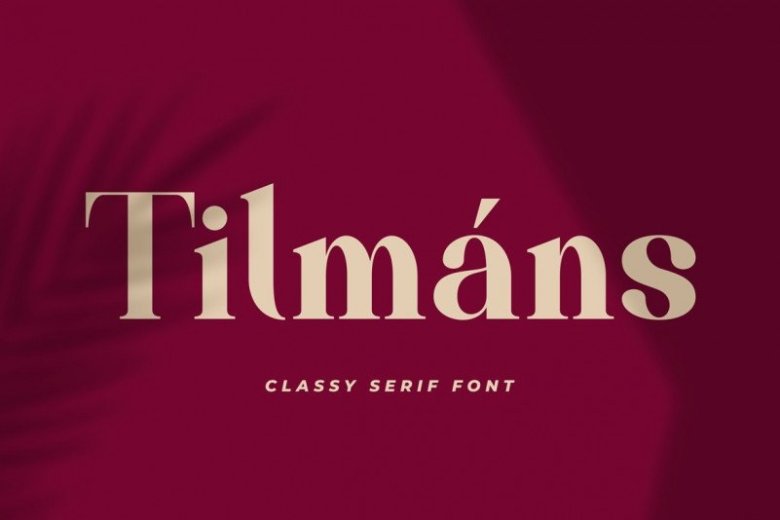
Tilmáns Font
Tilmáns Serif Font is a serif typeface inspired by the beauty of classic serif and calligraphic style, fused with modern touch. It’s designed and shared by sartstudio. This typeface is a modern and bold serif with a bunch of ligatures and alternates that will make your presentation or logo even more stunning and stand out! Tilmáns also support Multi Language. and already PUA Encoded!